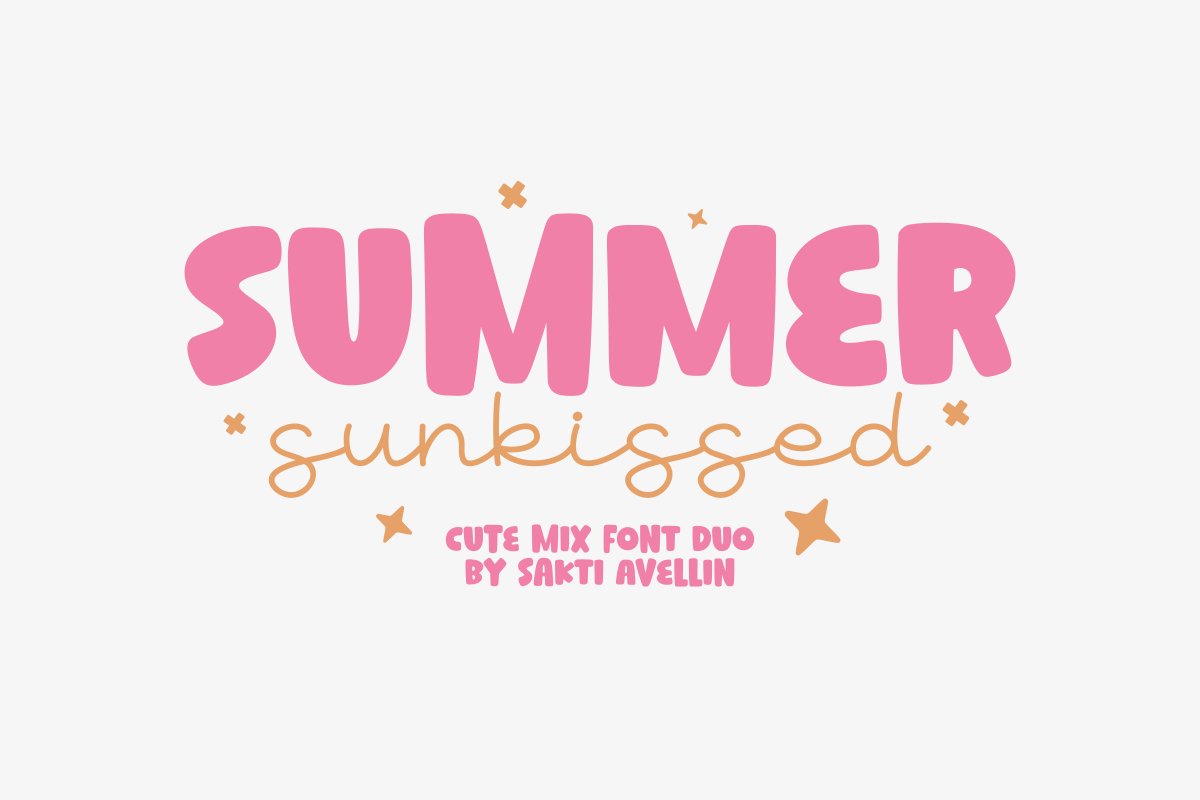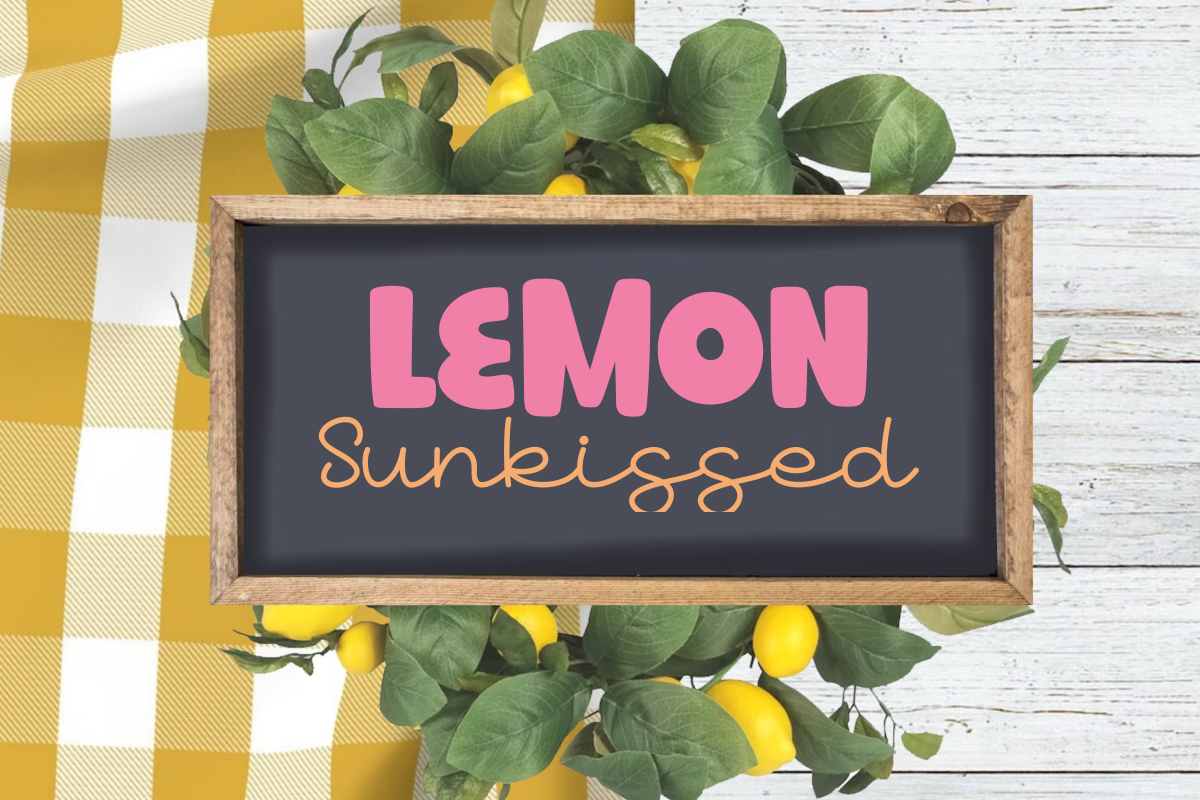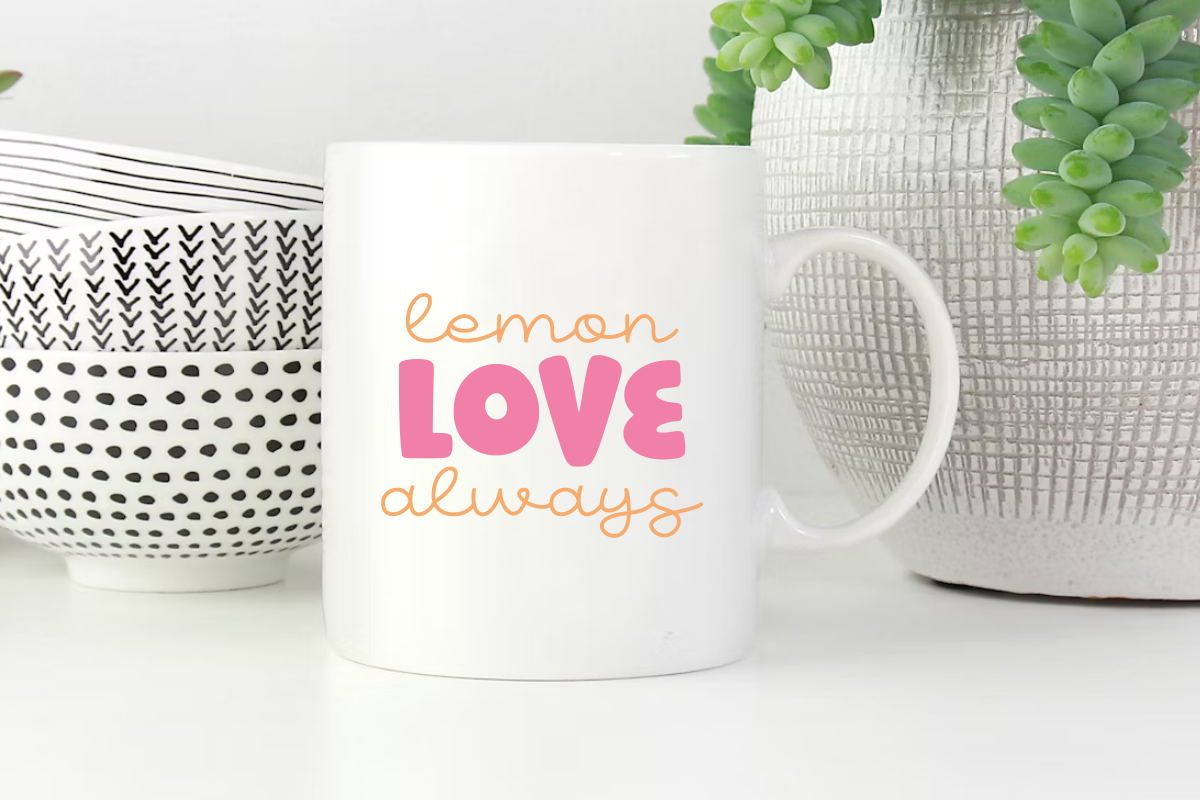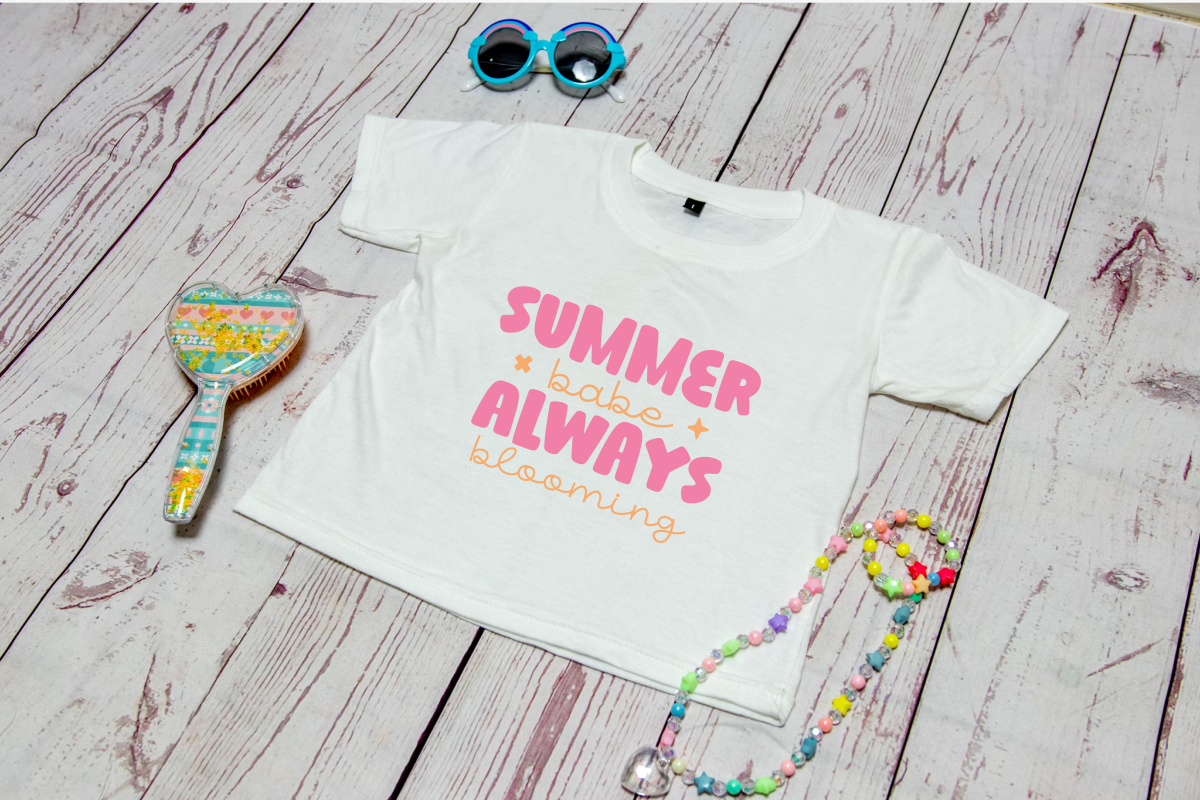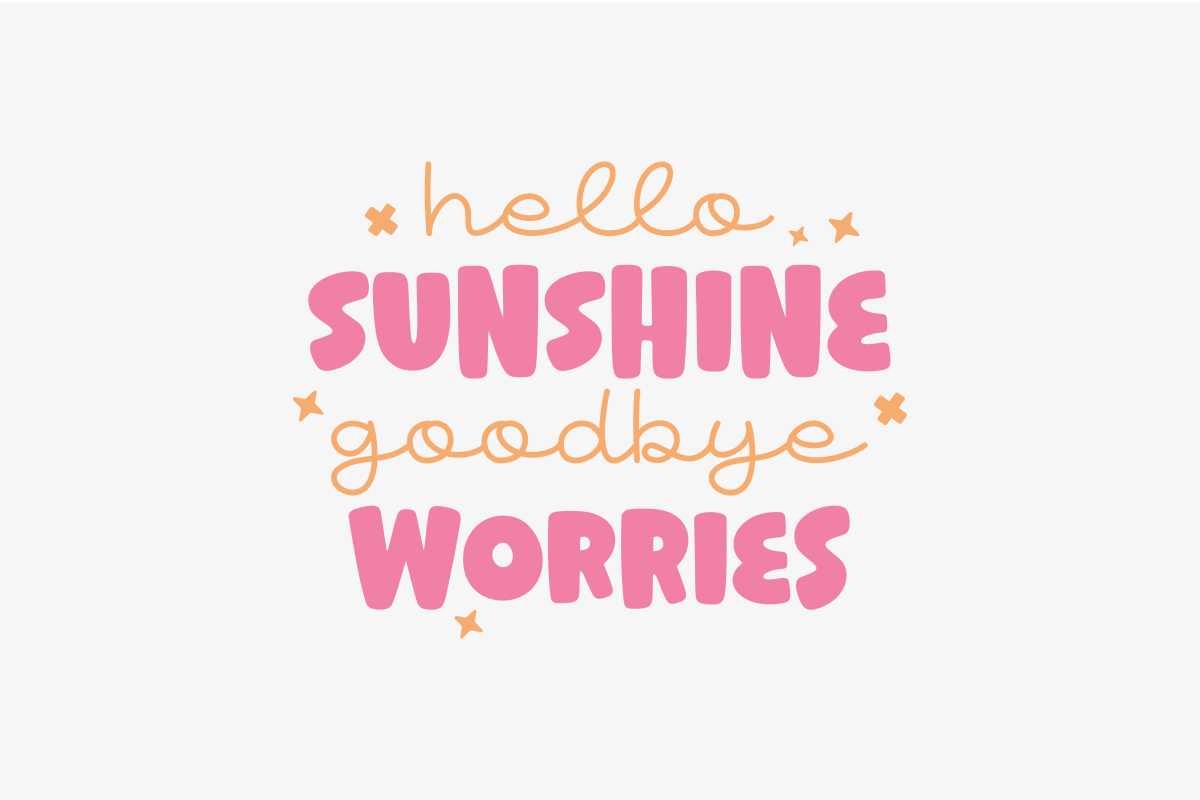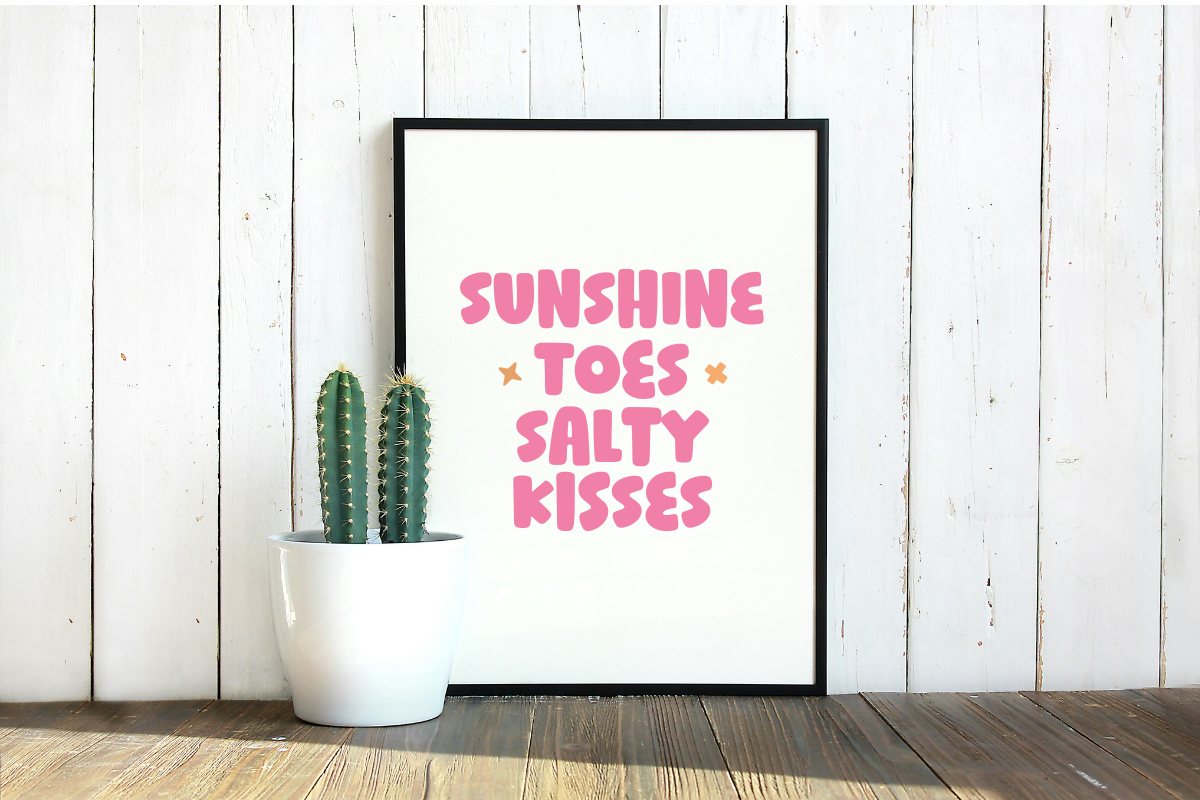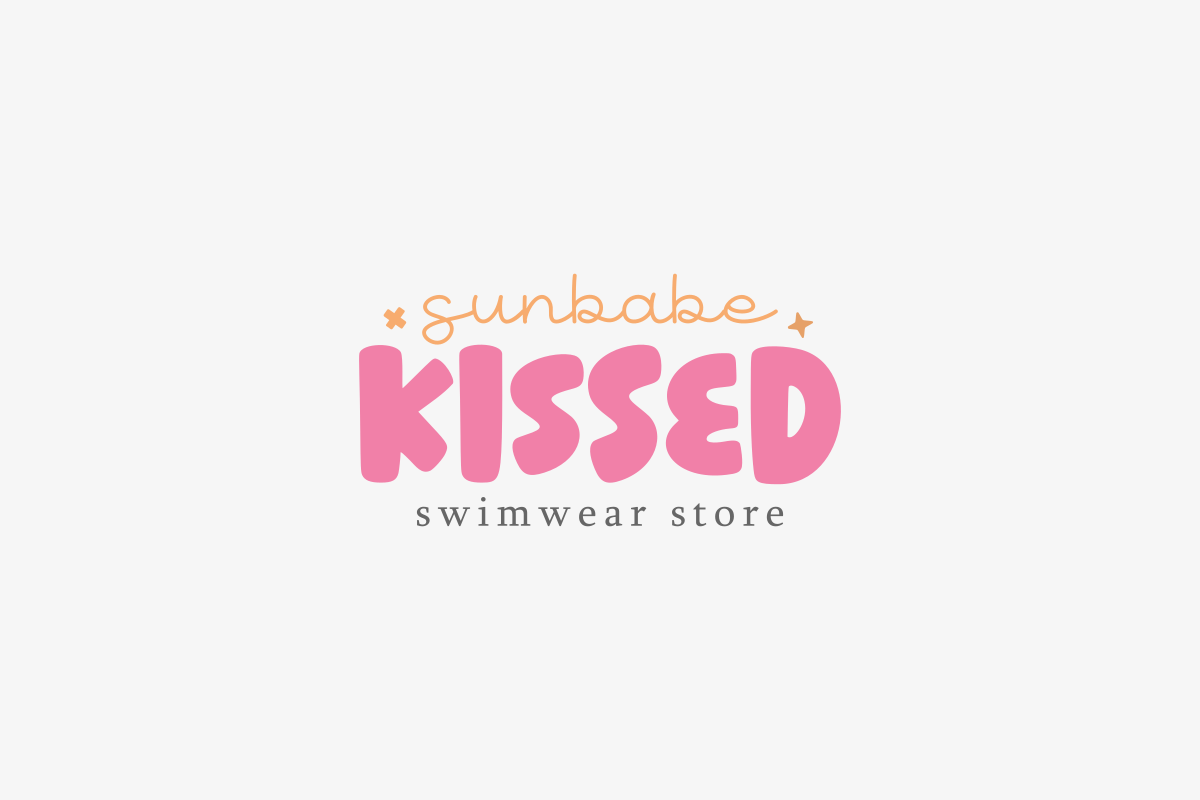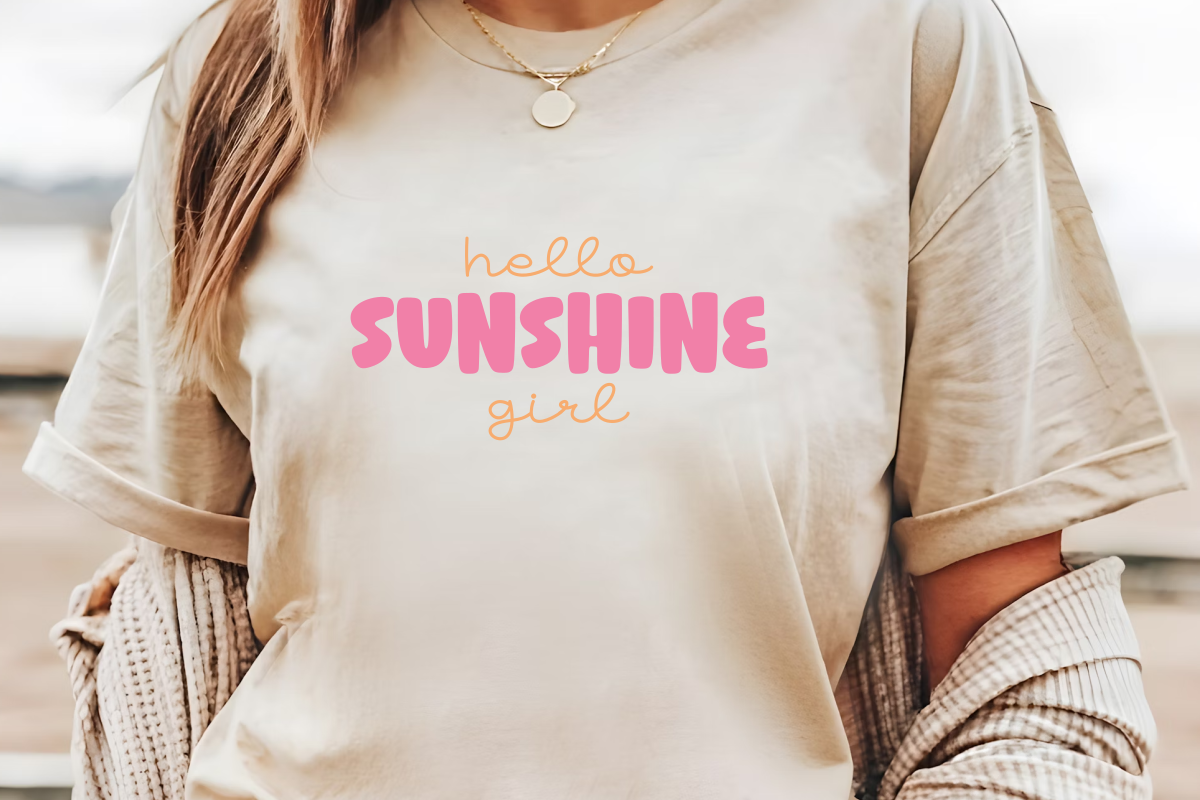
Summer Sunkissed - Cute Mix Font Duo
Summer Sunkissed is a delightful cute mix font duo that perfectly captures the warm, bright energy of the season. This versatile pairing features a chunky display font and a charming handwritten script font, making it ideal for creating engaging font combinations. Use this duo for cheerful summer branding, beach party invitations, travel blogs, kids' apparel, social media graphics, and vacation-themed designs. Its playful and casual style offers an immediate sunny vibe, perfect for any project that needs a modern and joyful aesthetic. Make your designs feel like a beautiful summer day with this bouncy font pair!